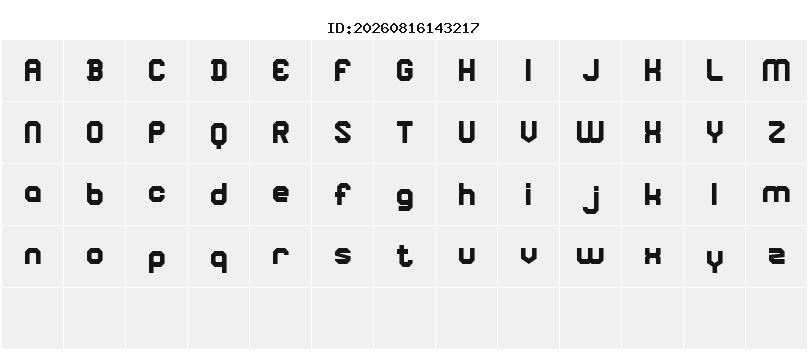
Square Block Preview
• Font Name: Square Block
• Full Font Name: Square Block Regular
• Designer: Andrea Cerboneschi for monocromo
• Manufacturer: monocromo
About Square Block.ttf
Square Block.ttf is a modern, elegant sans-serif font designed for ultimate readability and visual harmony. Perfect for branding, headlines, web design, and print materials.